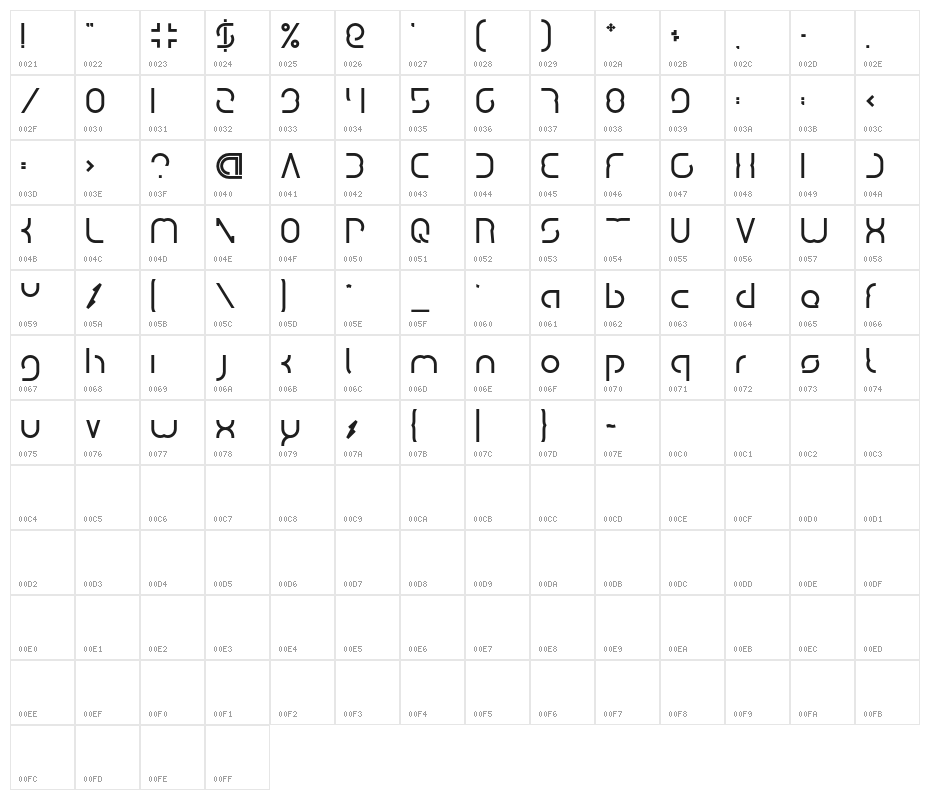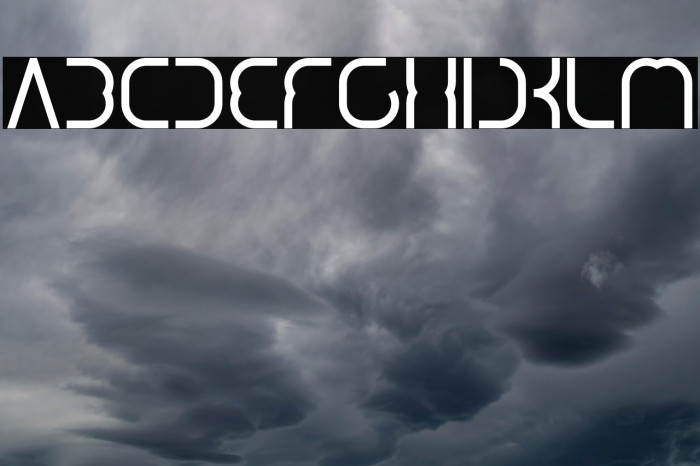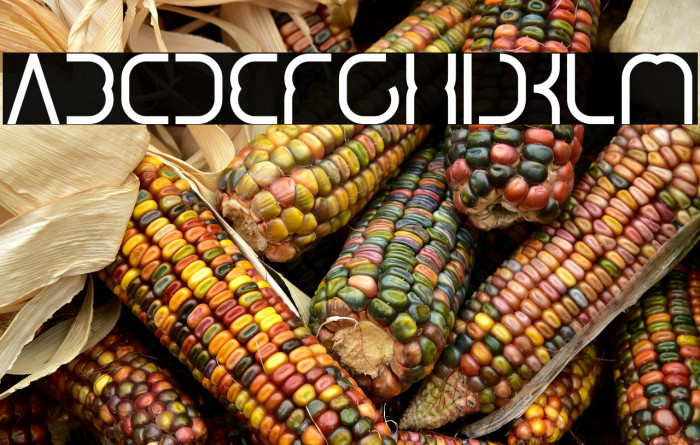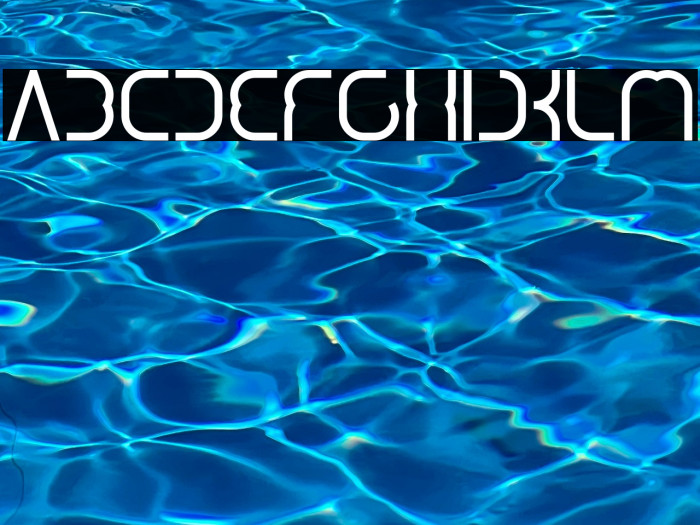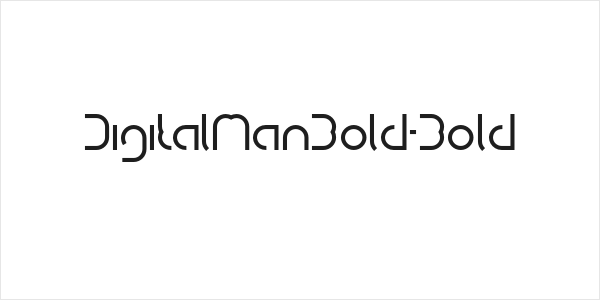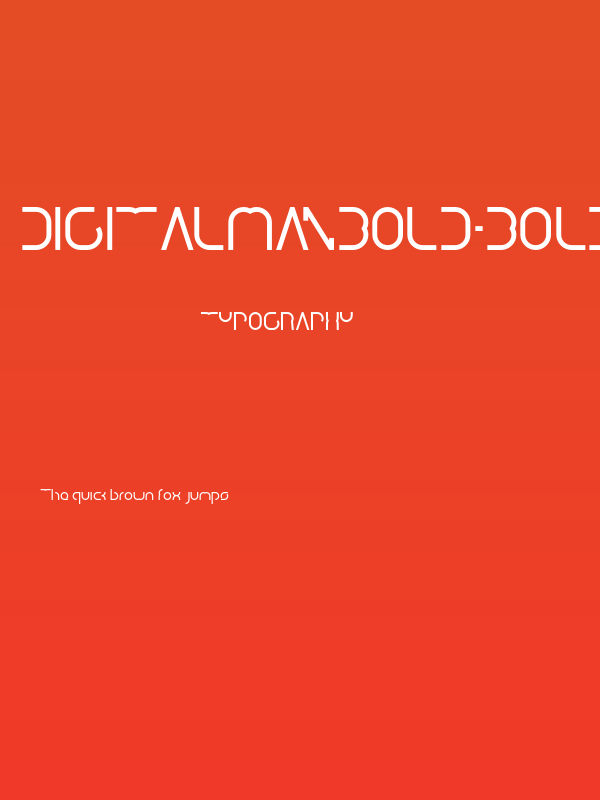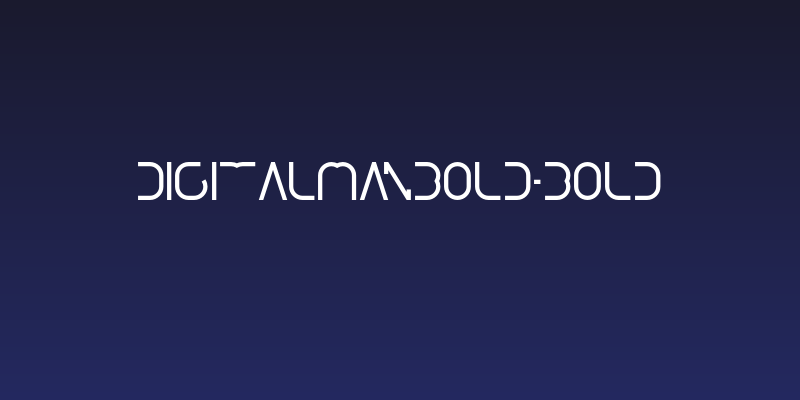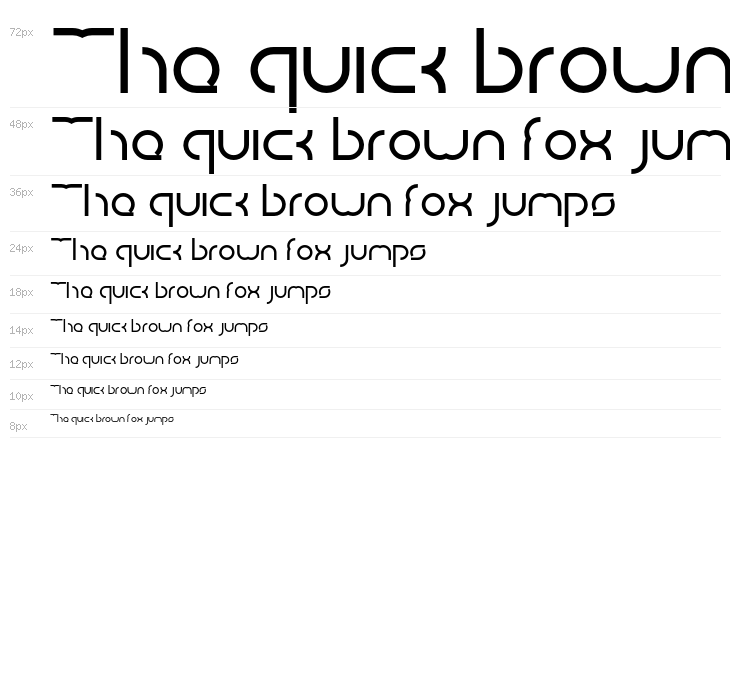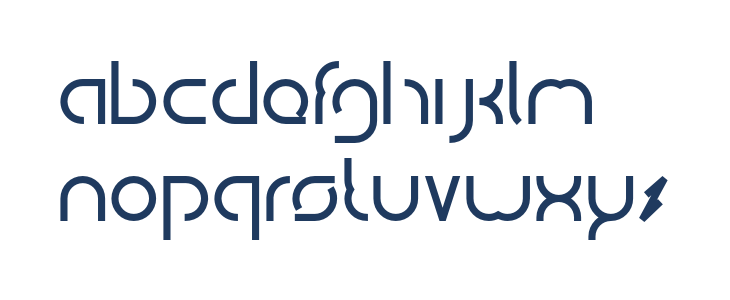
DigitalManBold-Bold Font
DigitalManBold-Bold Description
This font features a futuristic and geometric design with a bold presence. The characters are constructed with a combination of straight lines and curves, creating a unique and modern appearance. The uppercase letters have a strong, angular form, while the lowercase letters maintain a consistent style with slightly softer edges. Numbers and special characters follow the same design principles, ensuring a cohesive look across all glyphs. The font's distinct style makes it suitable for projects that require a modern and tech-inspired aesthetic.
| Proposed Projects | Ideal for technology branding, sci-fi posters, video game titles, and digital interfaces. |